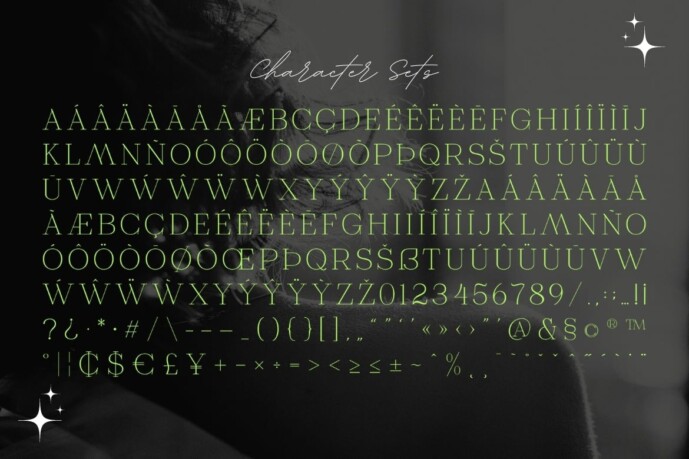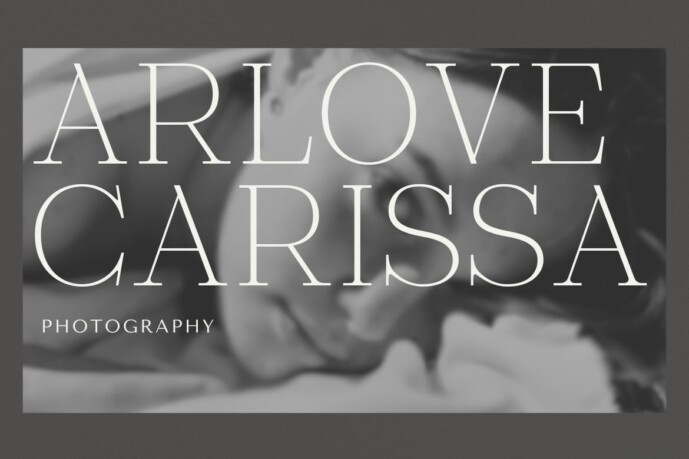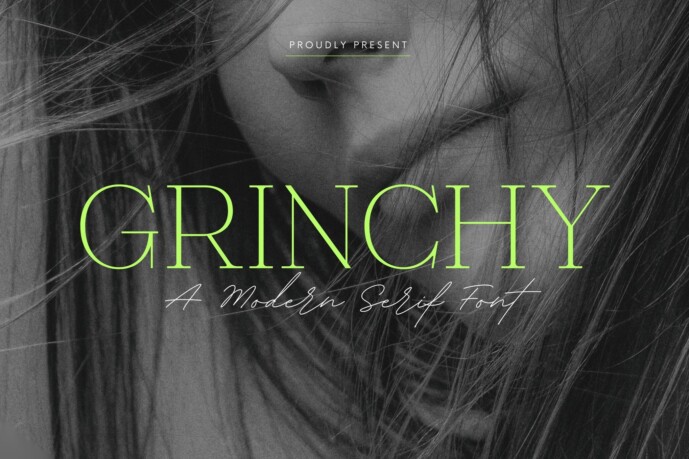
Grinchy Font
Designer: goldeneyedsg
Grinchy Font, modern serif font with elegant style this is perfect for branding, logos, invitation, magazines, product packaging and more.